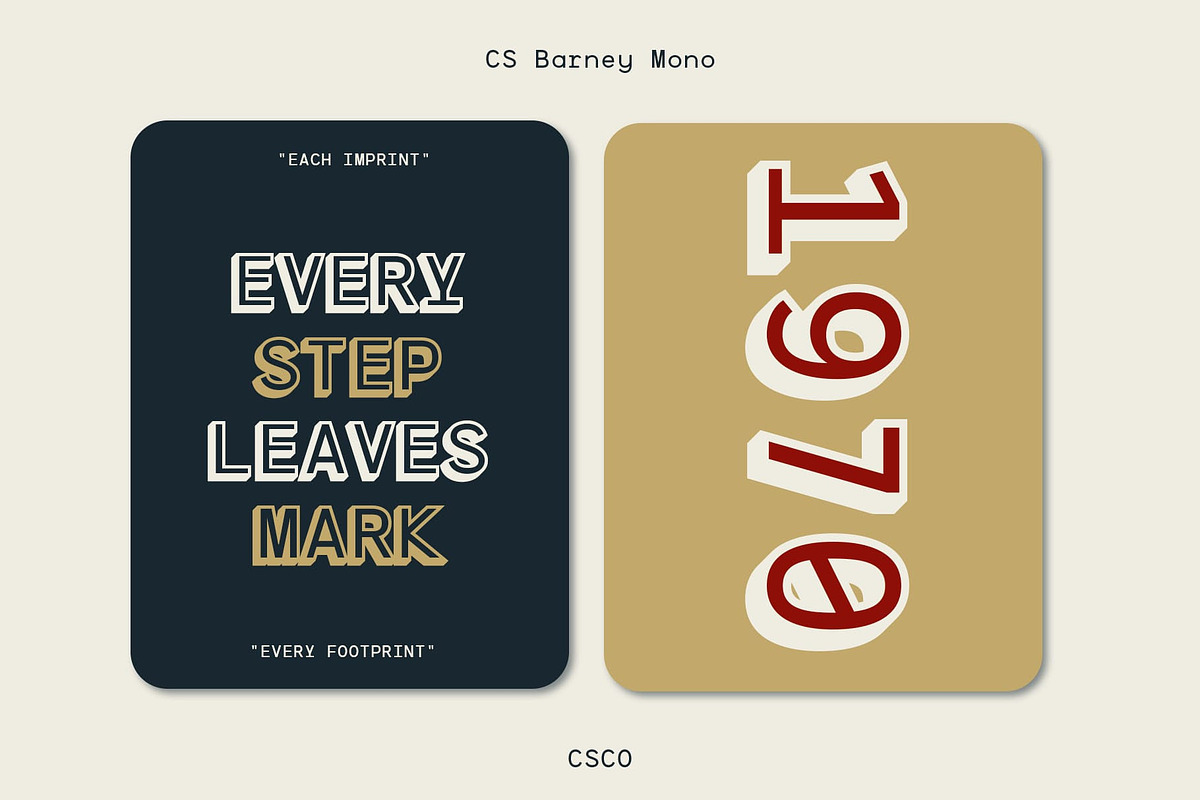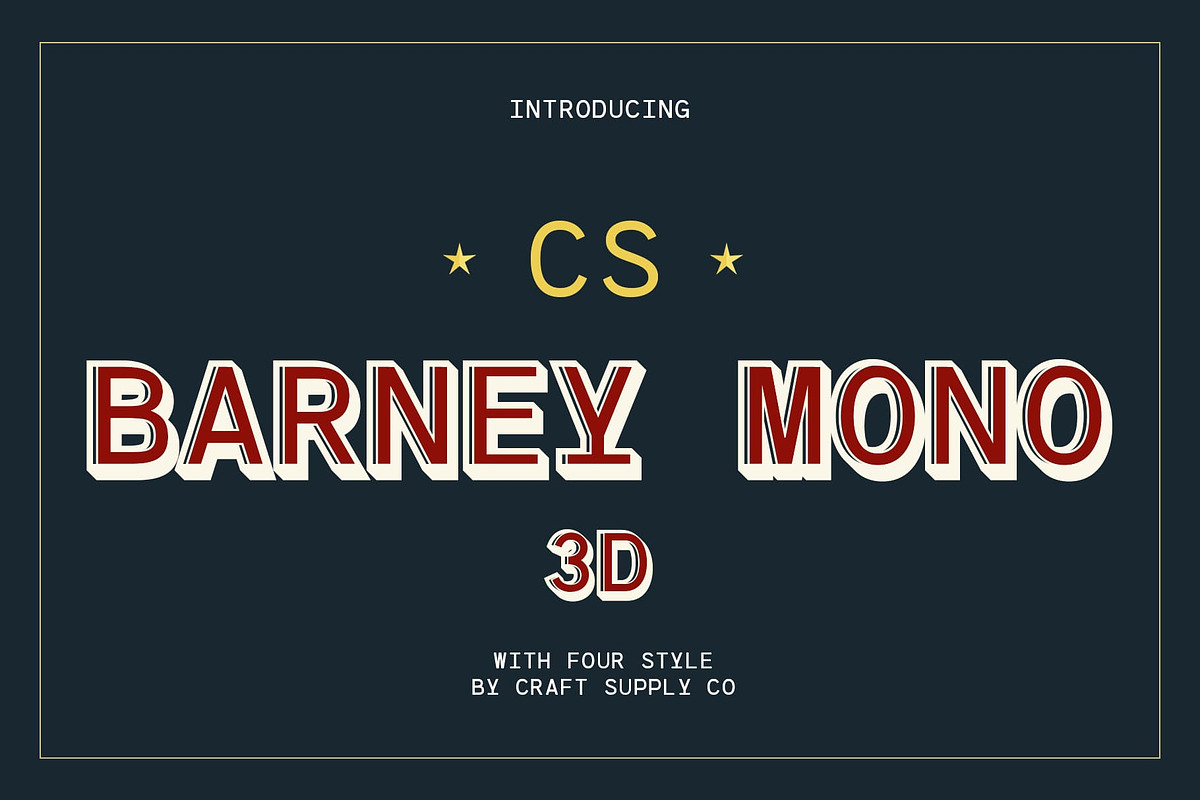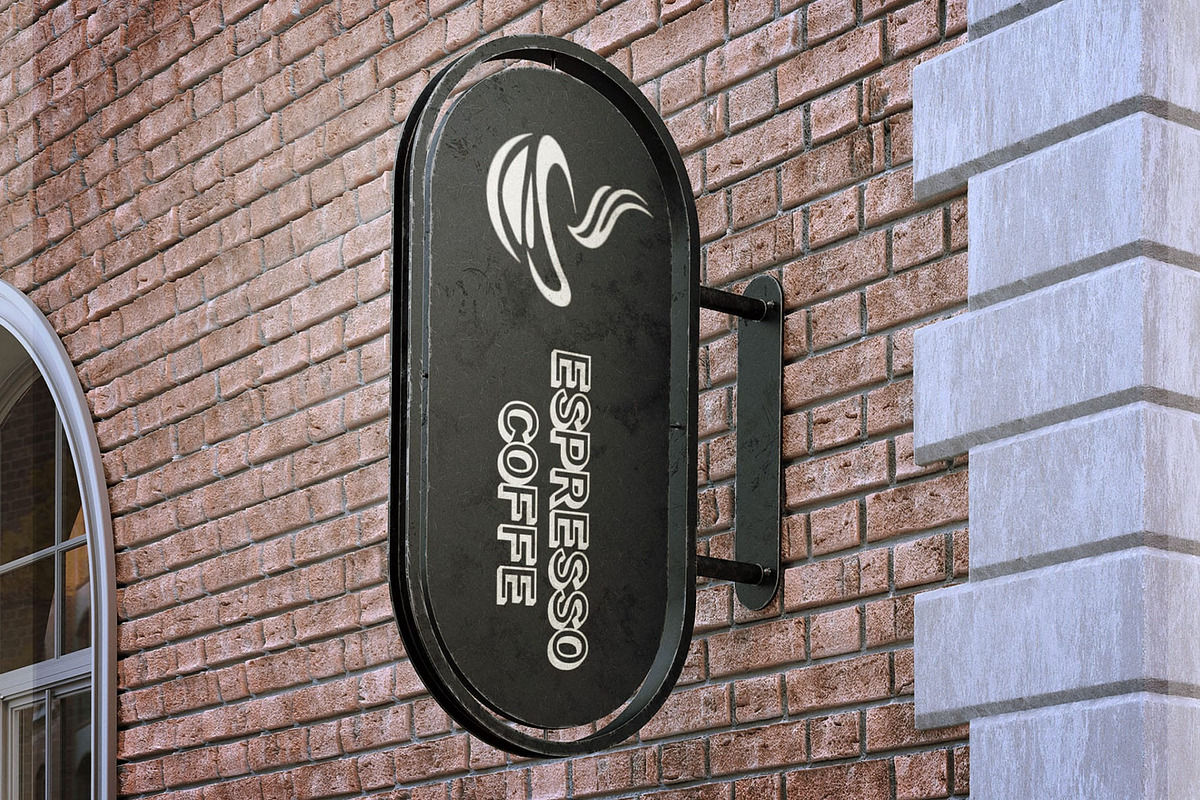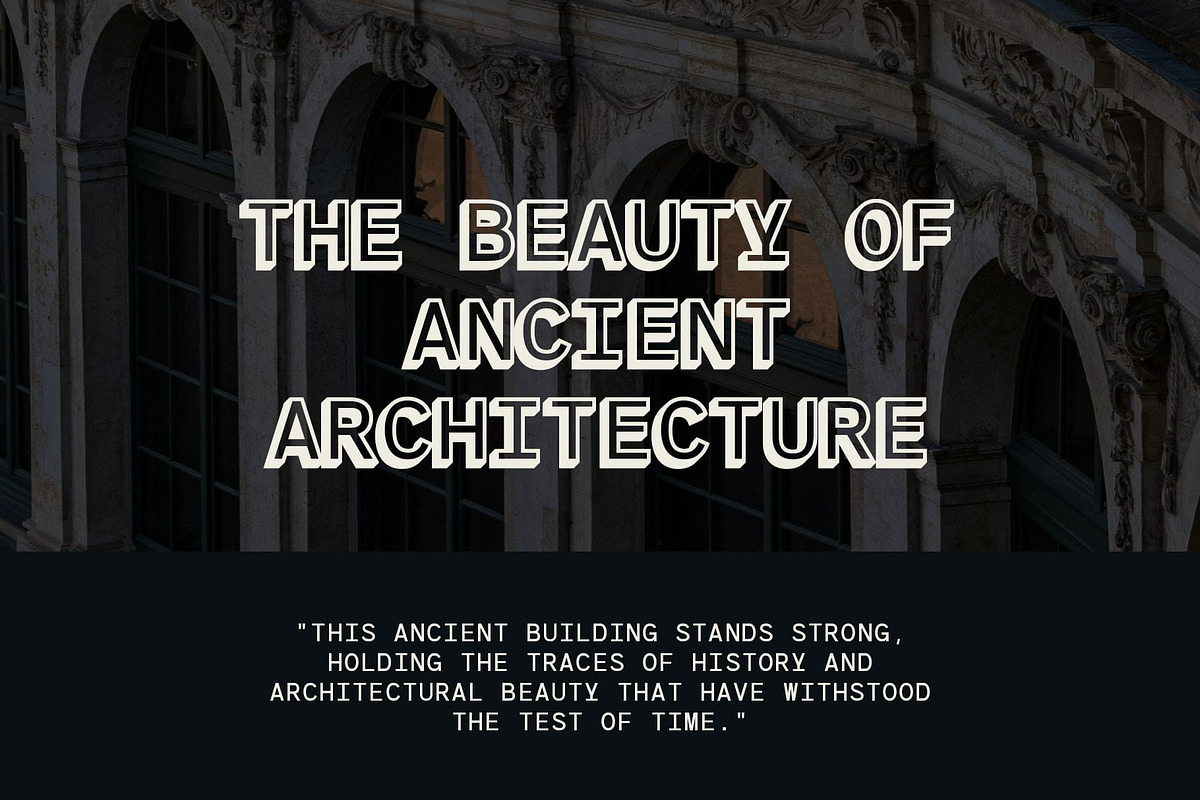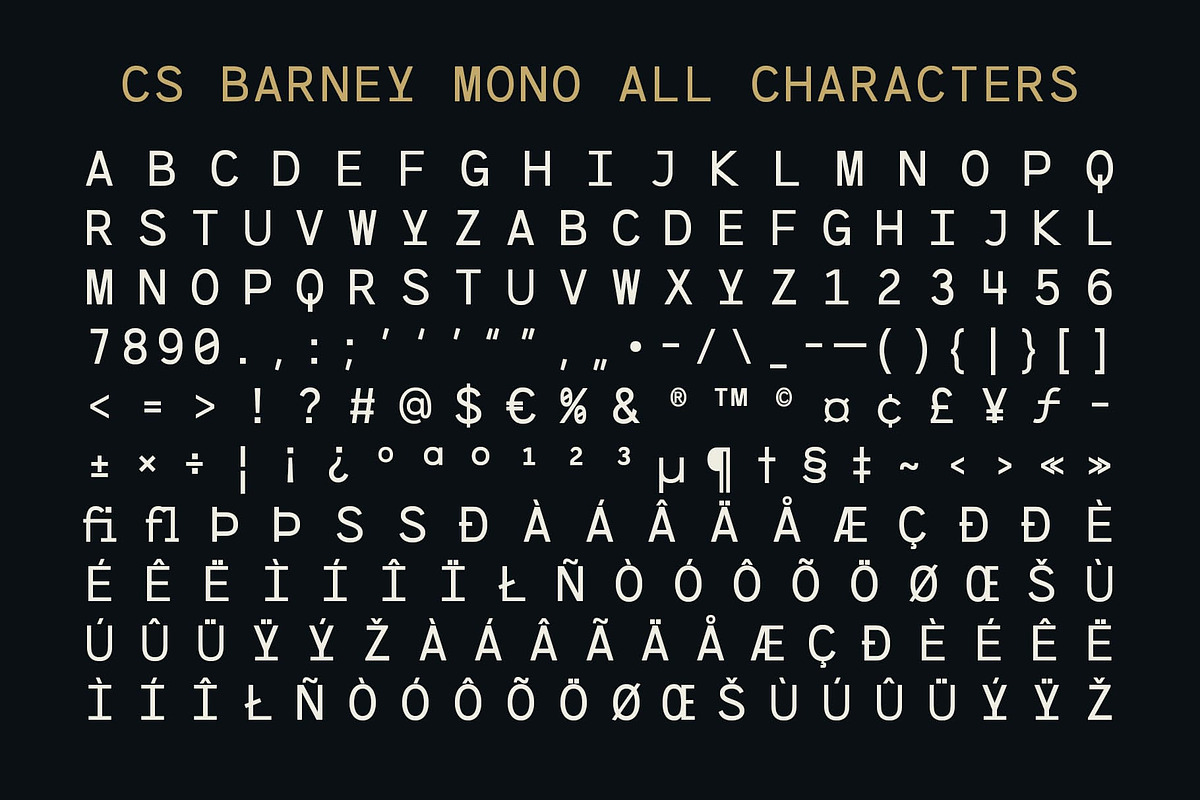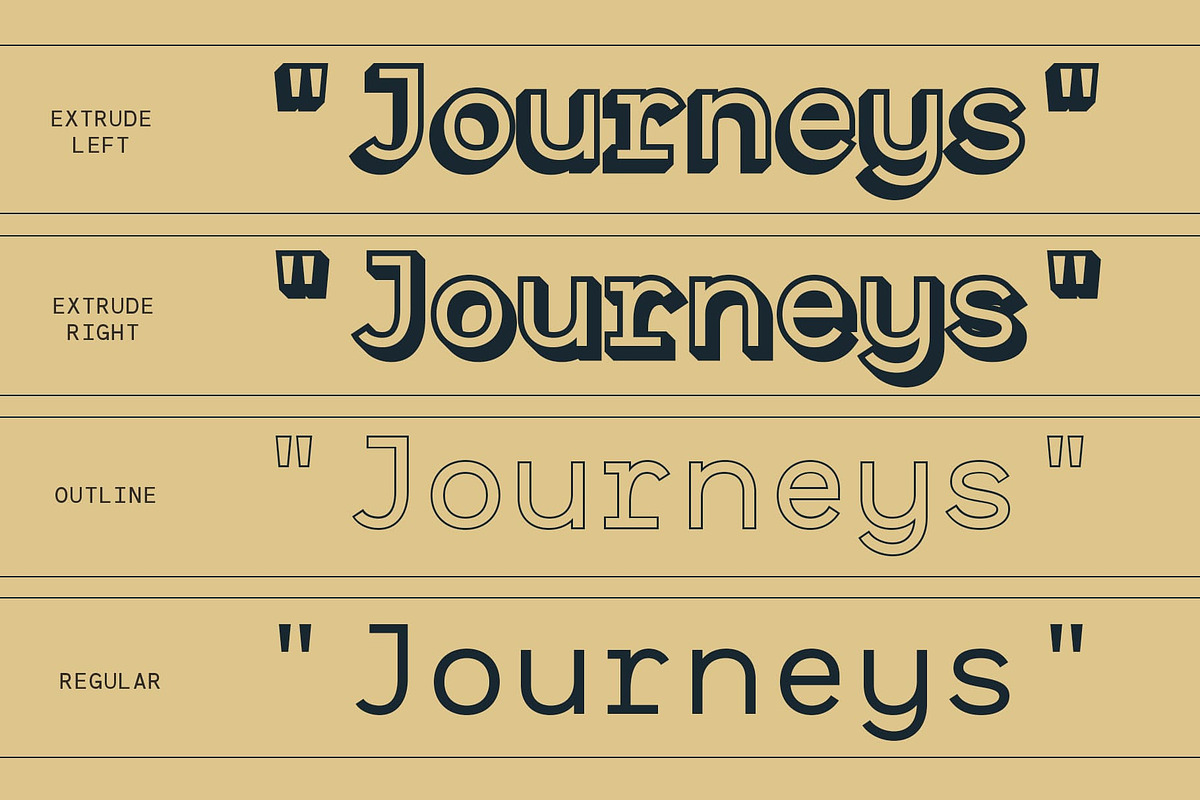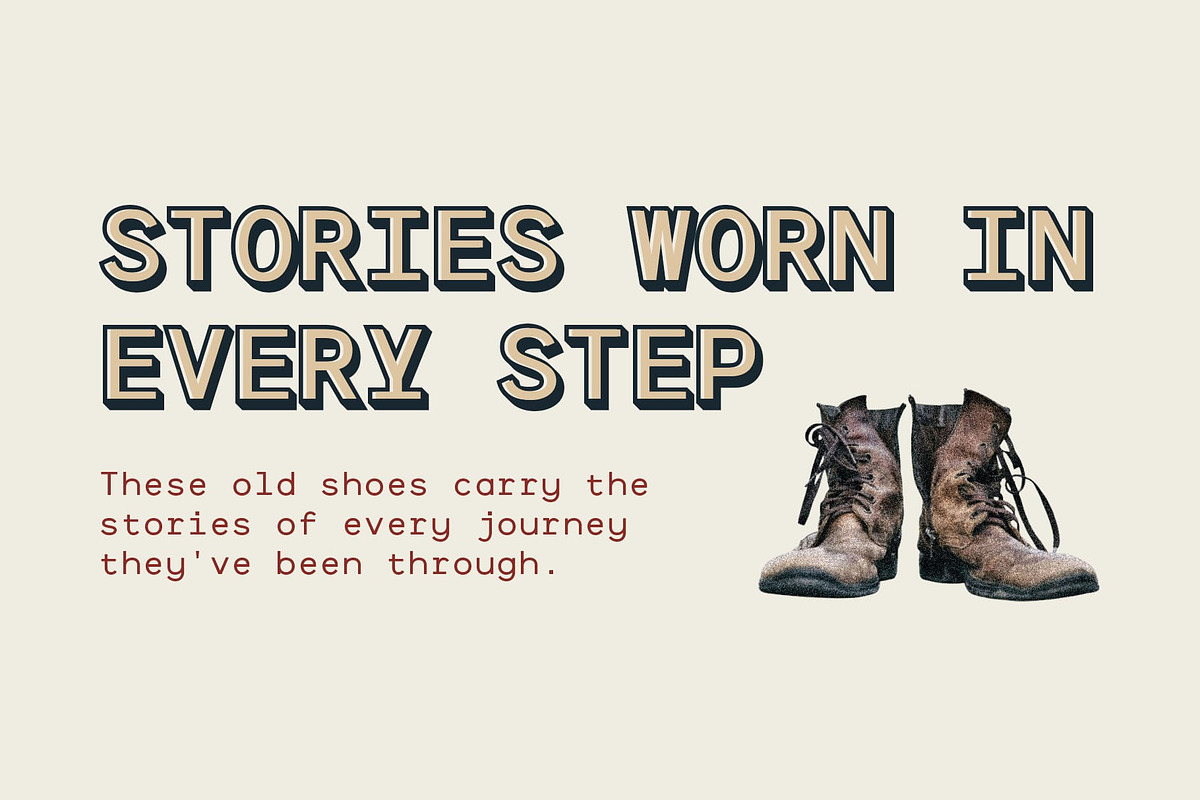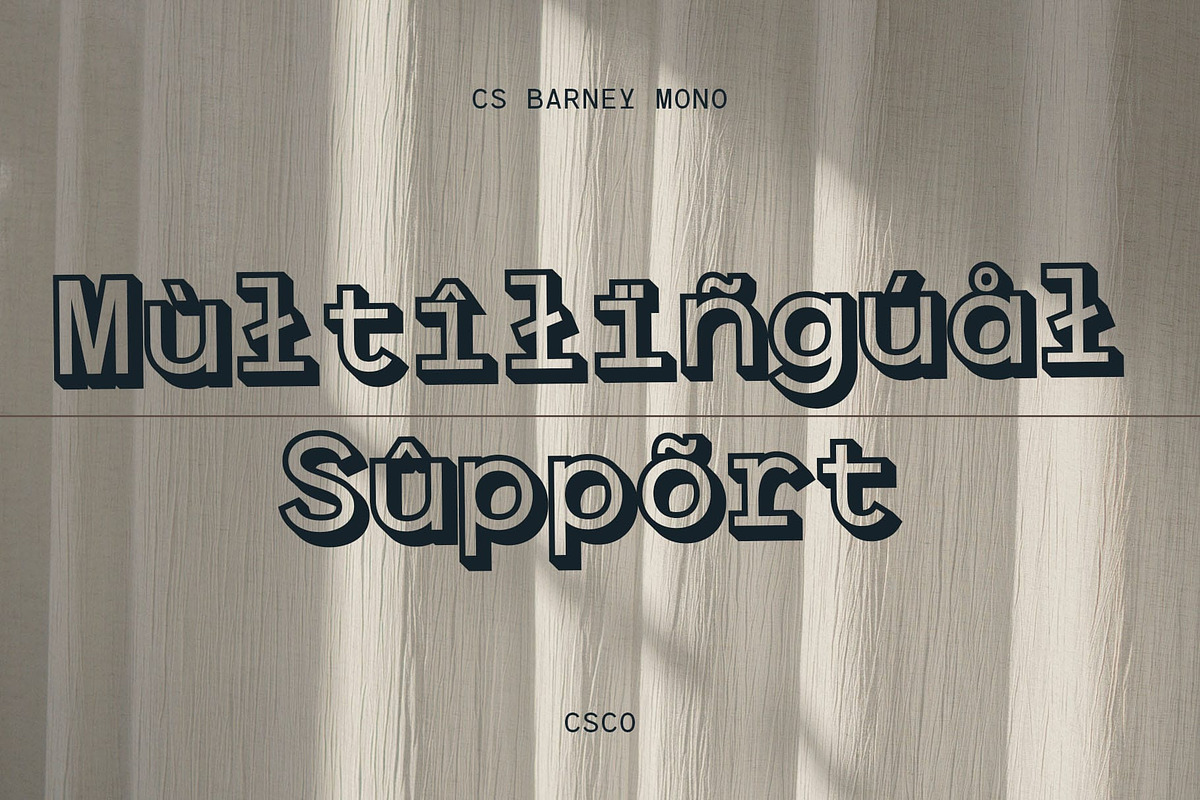
CS Barney Mono 3D
CS Barney Mono 3D – A Bold Monospaced Font with Depth
Technical Precision Meets Dynamic Depth CS Barney Mono 3D is a modern sans serif font that combines the clean, organized structure of monospacing with the captivating visual effect of three-dimensional depth. The monospaced design ensures that each character occupies the same width, creating a sense of balance and symmetry that is ideal for technical and structured applications.
Monospaced Design for Clarity and Symmetry With its monospaced form, CS Barney Mono 3D ensures that every letter aligns neatly in a consistent grid. This design is especially suitable for projects where clarity and precision are essential, such as coding interfaces, technical presentations, or any design requiring a systematic layout. The uniform width of each character creates a structured and organized look, contributing to a sense of professionalism and functionality.
3D Effect for a Bold, Dynamic Appearance What sets this monospaced font apart is its immersive 3D effect. This design feature adds volume and dimension, making the letters appear as though they are lifting off the page or screen. The depth and shadows create a sense of movement and energy, giving the font a lively, modern edge. This makes it ideal for projects that need to draw attention or make a strong visual impact, whether in digital designs, posters, or branding.
- CS Barney Mono Regular
- CS Barney Mono Outline
- CS Barney Mono Extrude Right
- CS Barney Mono Extrude Left